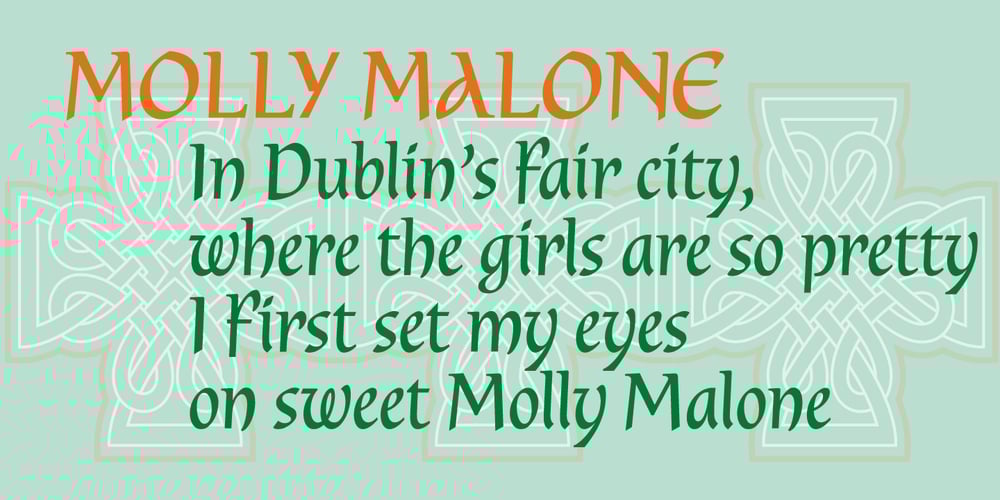
Dublin
Dublin font
Dublin Font Family was designed by Alan Meeks and published by Alan Meeks. Dublin contains 1 styles and family package options. Classic Celtic style of lettering with an alternative set of capitals and a few alternative lower case.